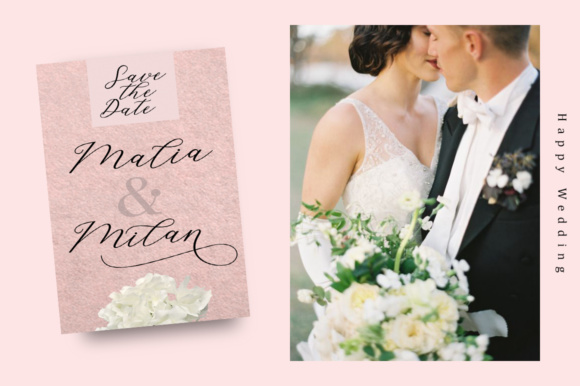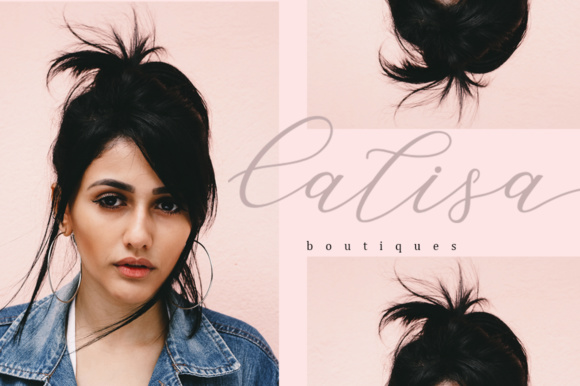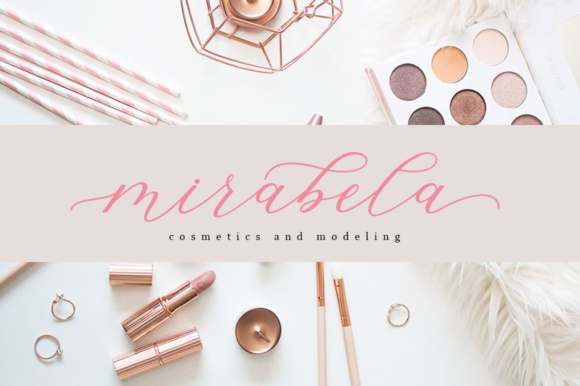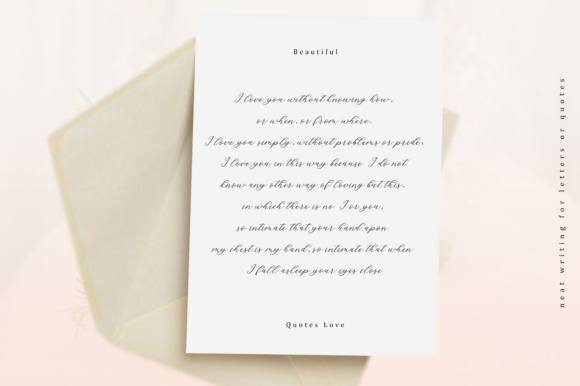
About Hello Sarrah Font
Hello Sarrah is a beautiful and delicate feminine font, carefully crafted to make your headlines look stunning. This modern script style is perfect for romantic and modern designs. Add this lovely freebie to your creations and take your designs to the next level!